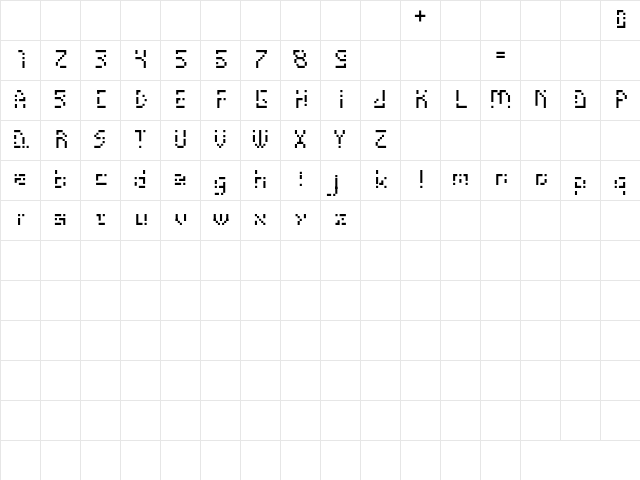
groutpix Regular
Design Context for groutpix
groutpix is a composed and adaptable typeface that performs quietly and consistently across a wide range of design contexts.